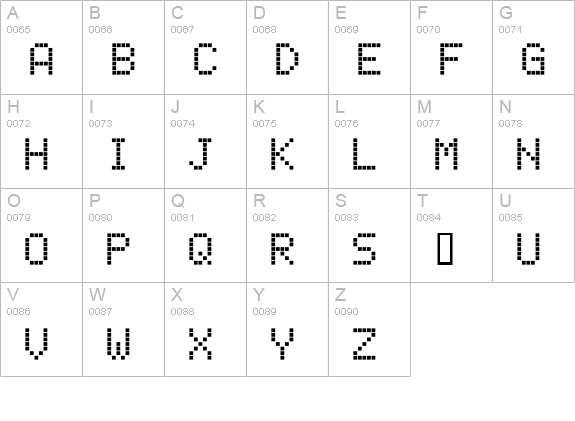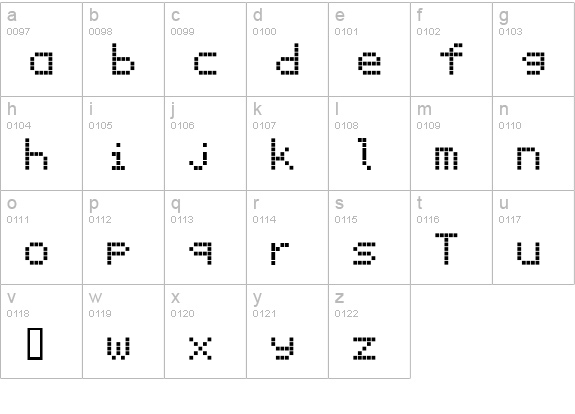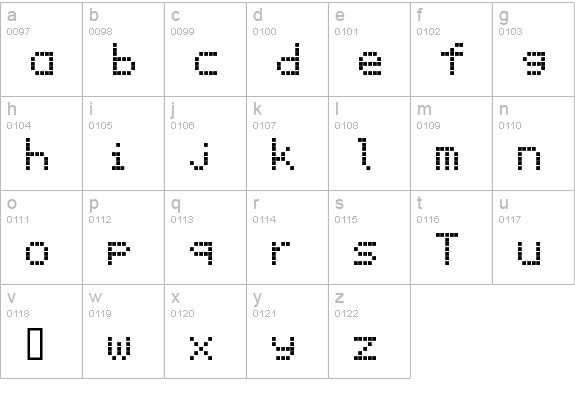
DisplayMonoA Font Details
DisplayMonoA font is a modern and versatile typeface that combines the classic elegance of a monospaced font with a contemporary twist. Its clean lines and sharp edges make it perfect for a wide range of design projects, from branding to editorial design. The font features a sleek and minimalist design that is both stylish and easy to read. One of the best things about DisplayMonoA font is that it is completely free to download. You can easily access this font at FontsMarket.com and start using it in your projects right away. Whether you are a designer looking for a fresh new font to add to your collection or a business owner in need of a professional and eye-catching typeface for your branding materials, DisplayMonoA font is the perfect choice. Download it today and see for yourself the impact it can make on your designs.